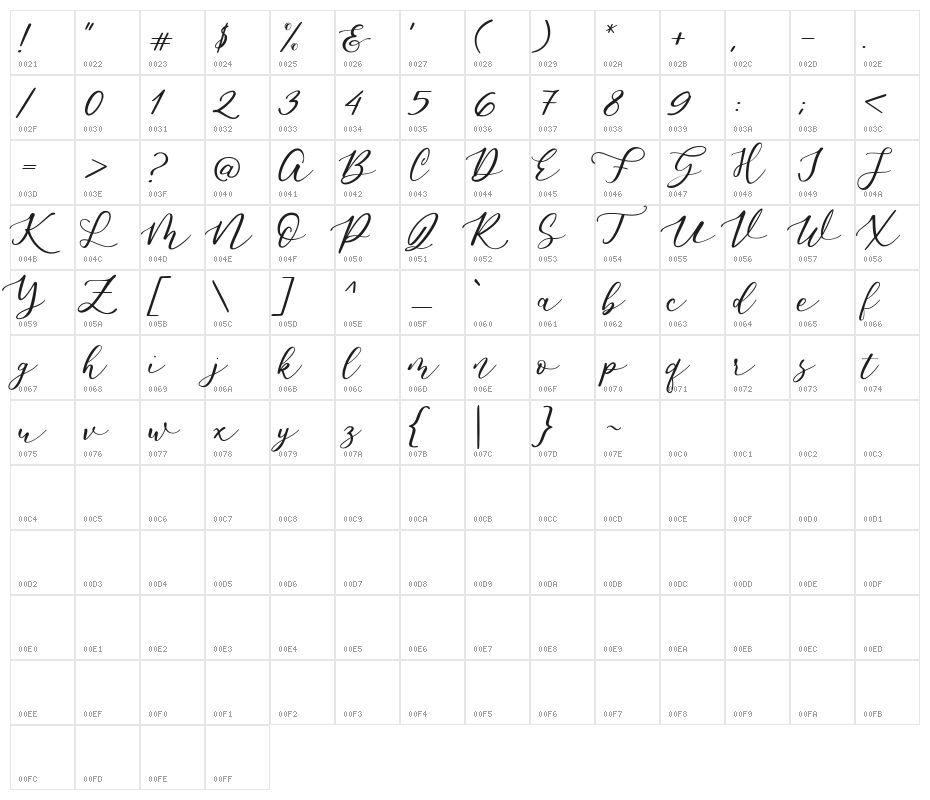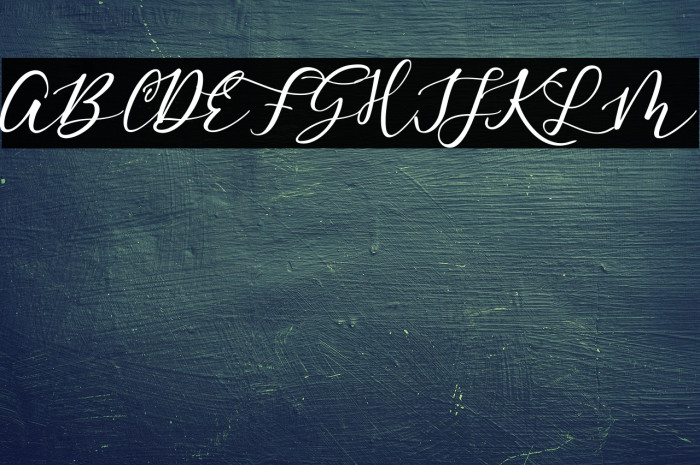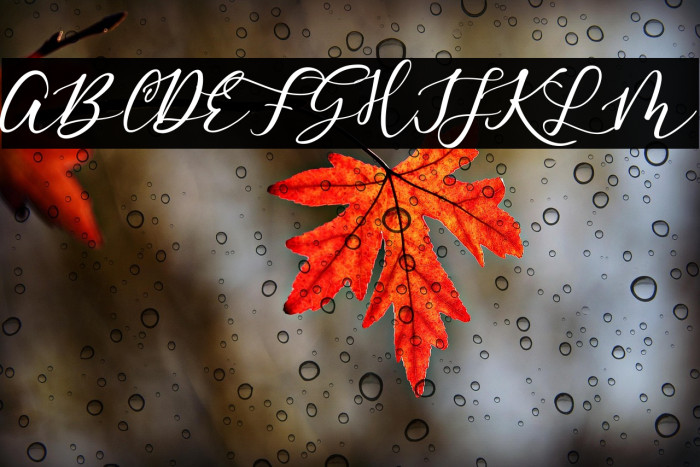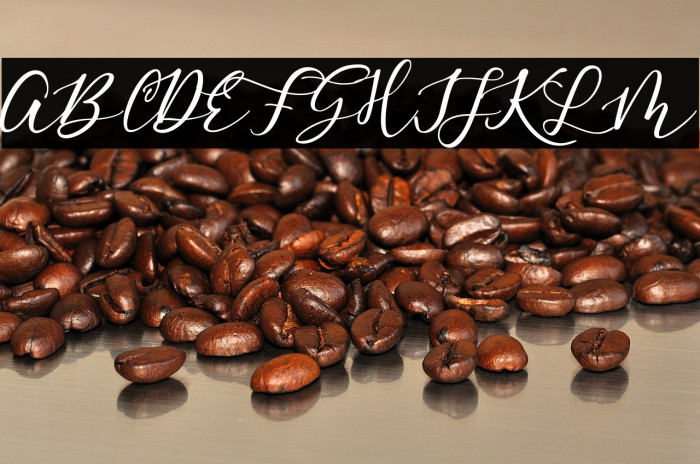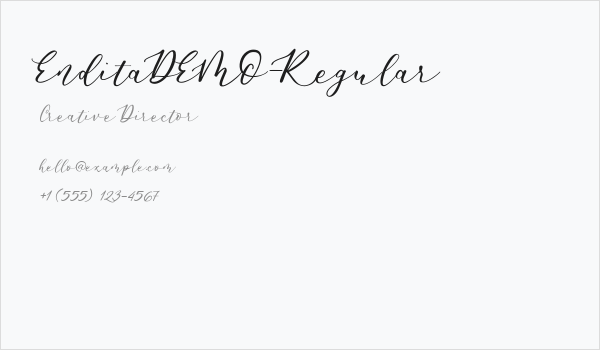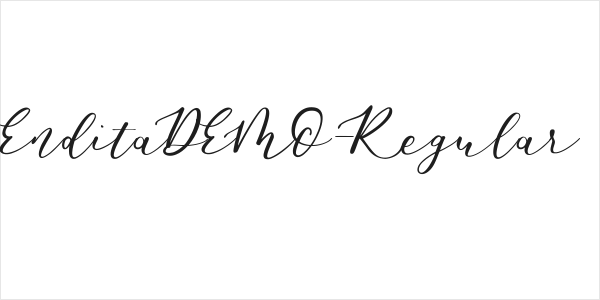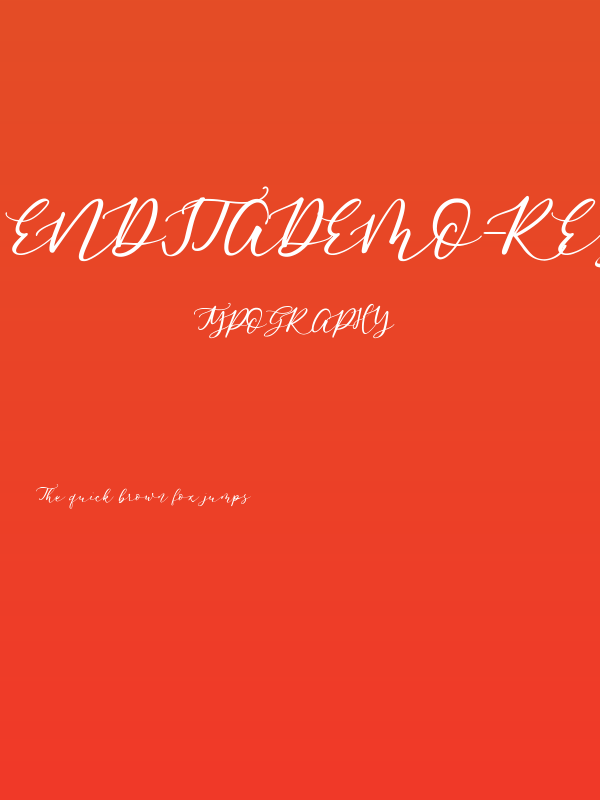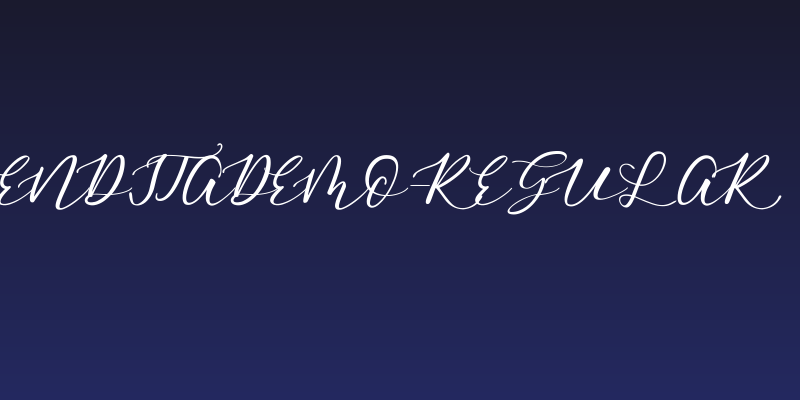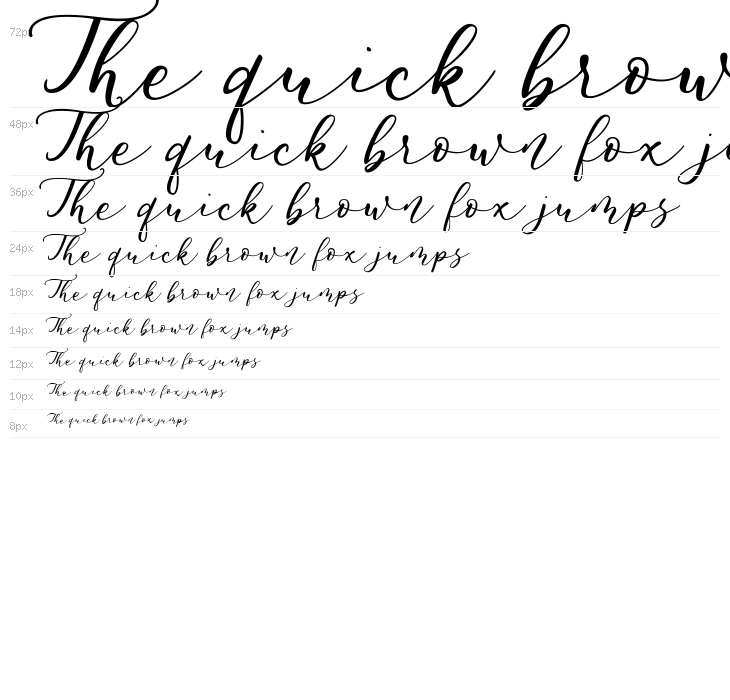
EnditaDEMO-Regular Font
EnditaDEMO-Regular Description
This font features an elegant and flowing script style, characterized by its smooth, cursive letterforms that exude a sense of sophistication and grace. The uppercase letters are bold and sweeping, with intricate loops and flourishes that add a decorative touch. The lowercase letters maintain a consistent flow, complementing the uppercase with their gentle curves and connected strokes. The numerals are stylish and maintain the script's fluidity, while the special characters are thoughtfully designed to match the overall aesthetic. This font is perfect for projects that require a touch of elegance and personality.
| Overall Style | Elegant, Decorative |
| Proposed Projects | Ideal for wedding invitations, elegant branding, personal stationery, and decorative signage. |